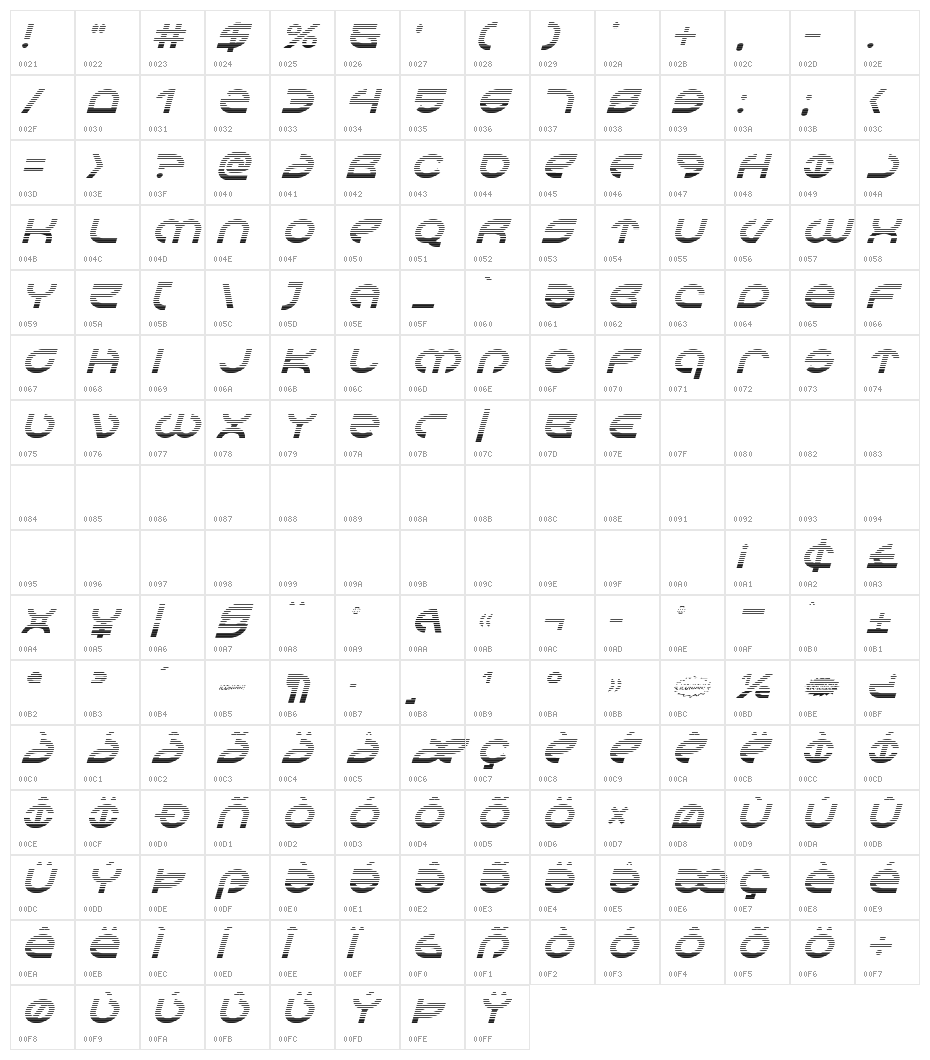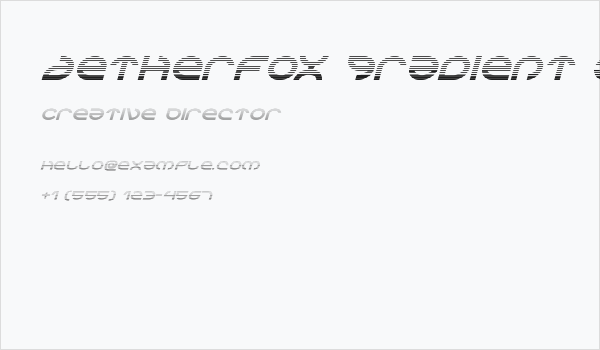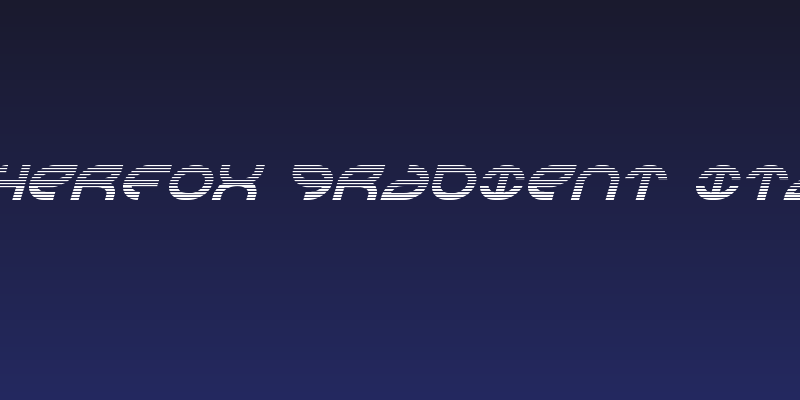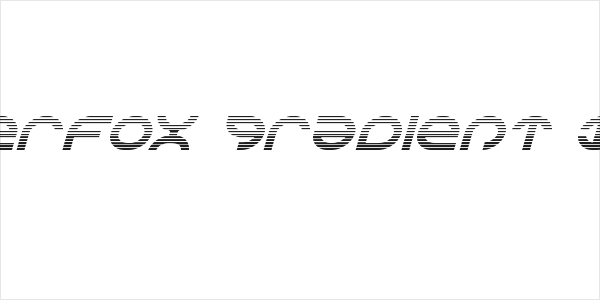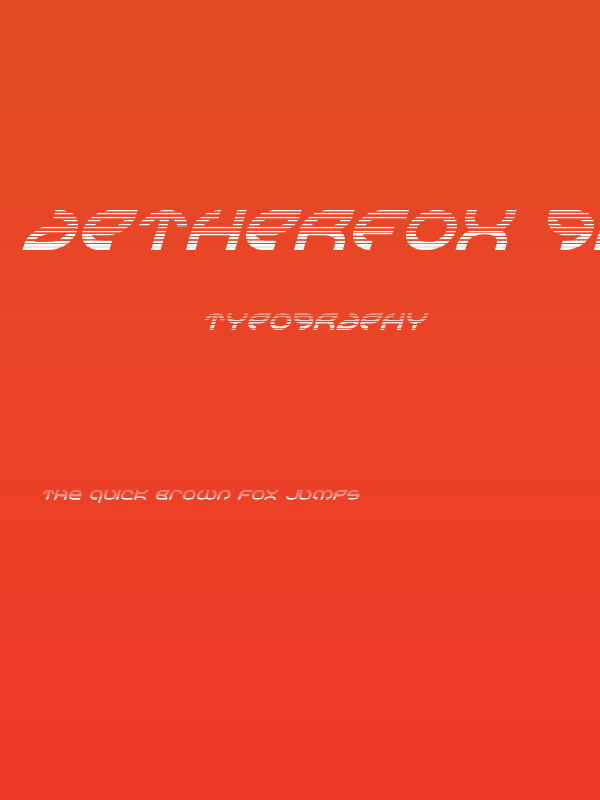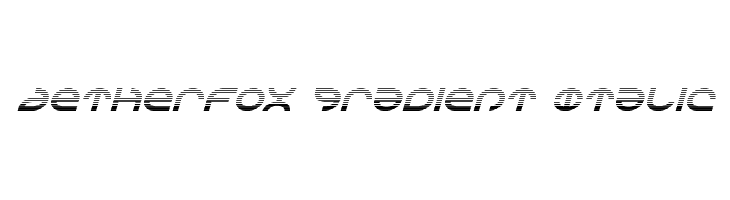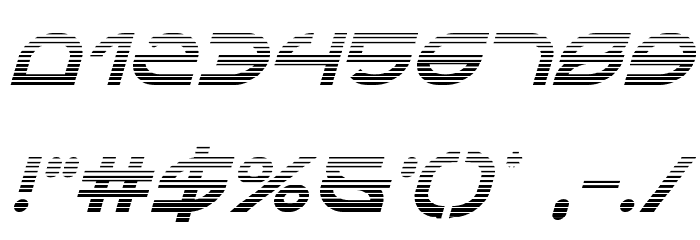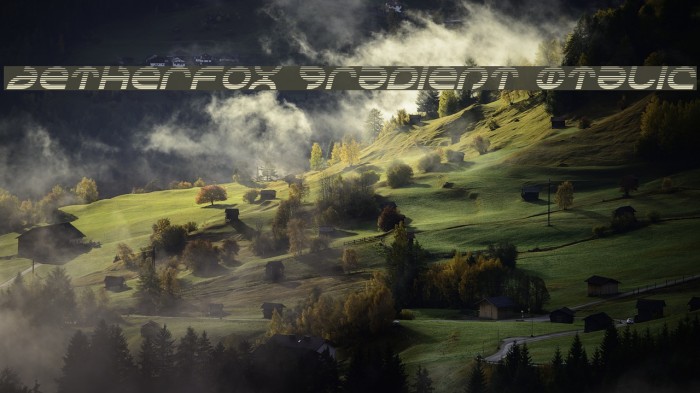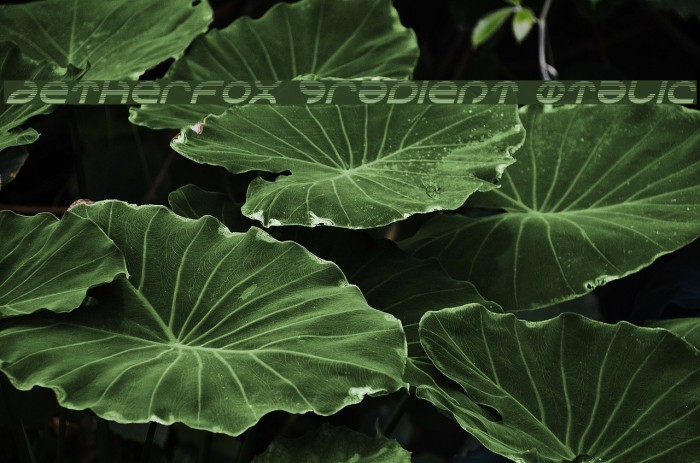
Aetherfox Gradient Italic Font
Aetherfox Gradient Italic Description
This font features a futuristic and dynamic design, characterized by its gradient-like horizontal lines that create a sense of motion and depth. The letters are italicized, adding to the sleek and modern aesthetic. The uppercase and lowercase characters maintain a consistent style, with rounded edges and a slightly condensed form. The numbers and special characters follow the same design principles, ensuring uniformity across the font. The overall appearance is bold and eye-catching, making it suitable for projects that require a modern and innovative look.
| Proposed Projects | Ideal for tech-related branding, futuristic posters, digital art, and modern advertising campaigns. |